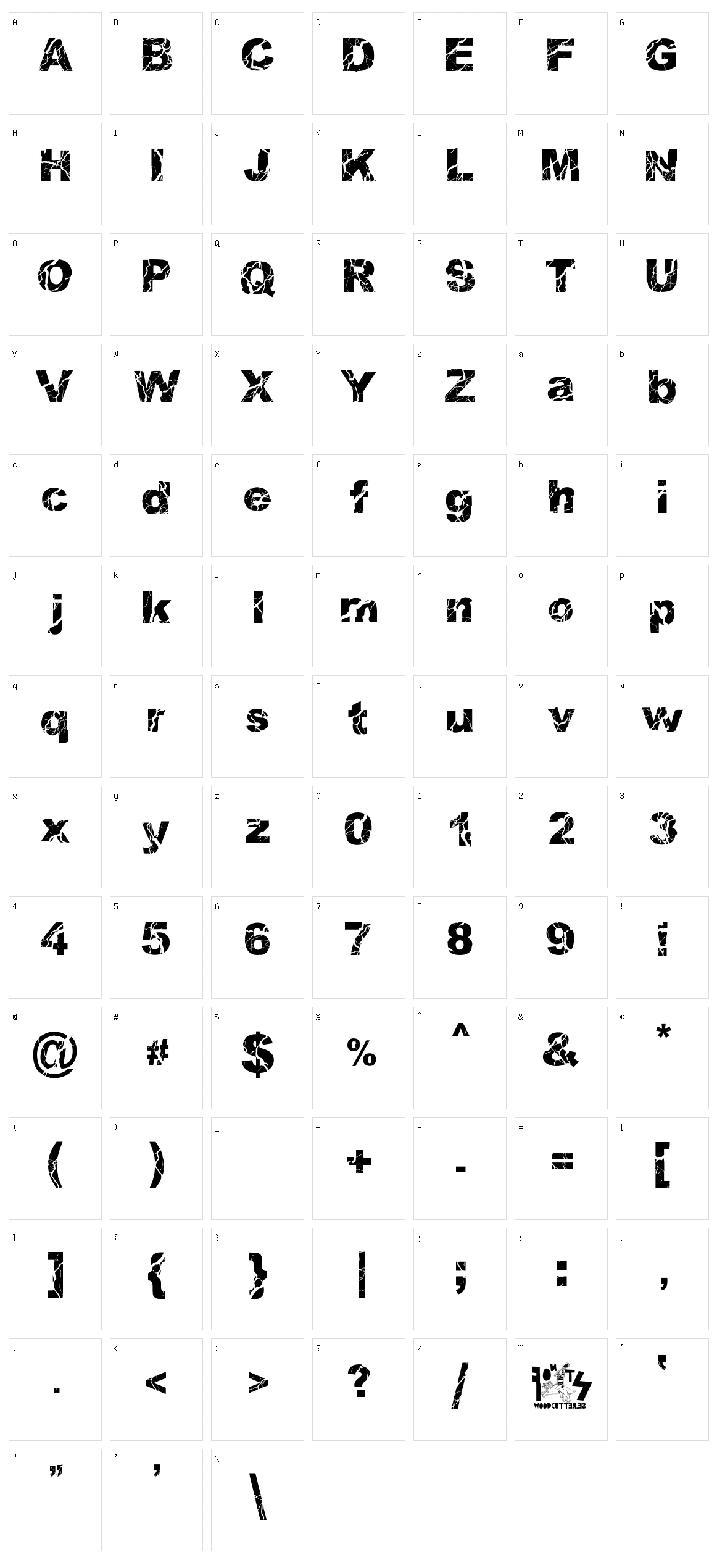
The free font Woodcutter Storm is carefully designed by Woodcutter, showcasing a thoughtful balance of creativity and usability and falls under the Destroy font style. When you download the ZIP file, it contains only 91.85 KB of font files, making it lightweight and quick to download. Please review the license details below to understand permitted usage and distribution rights. If license information is not available, we recommend using this font for personal projects only or contacting the author directly for commercial usage permissions.